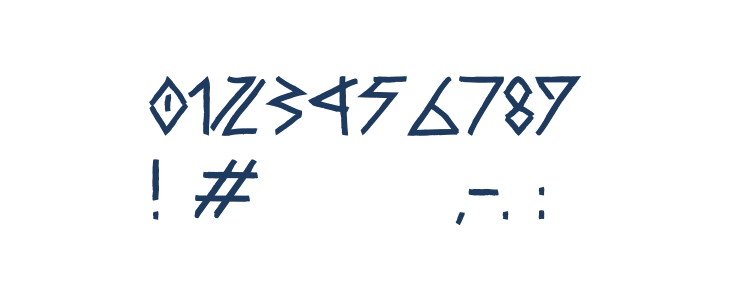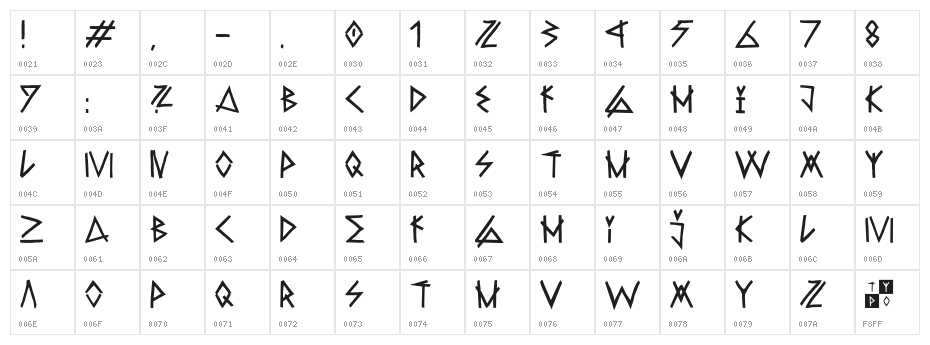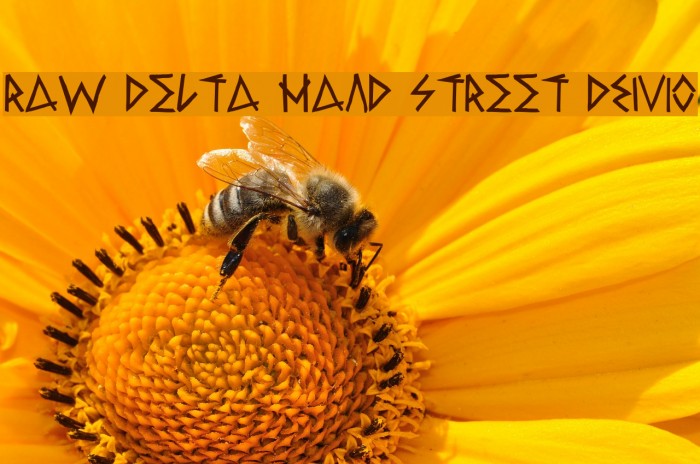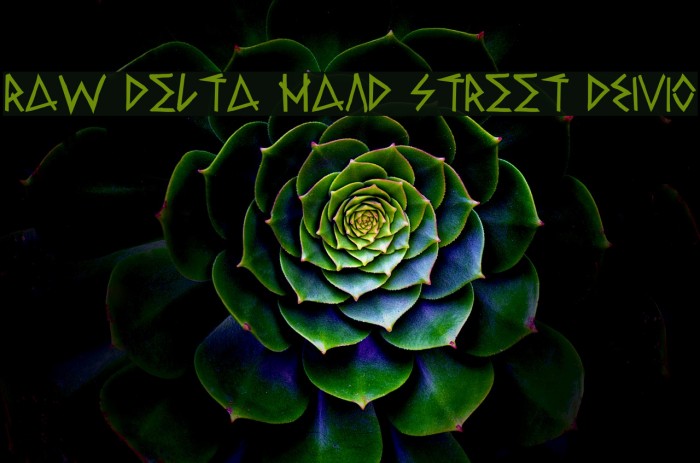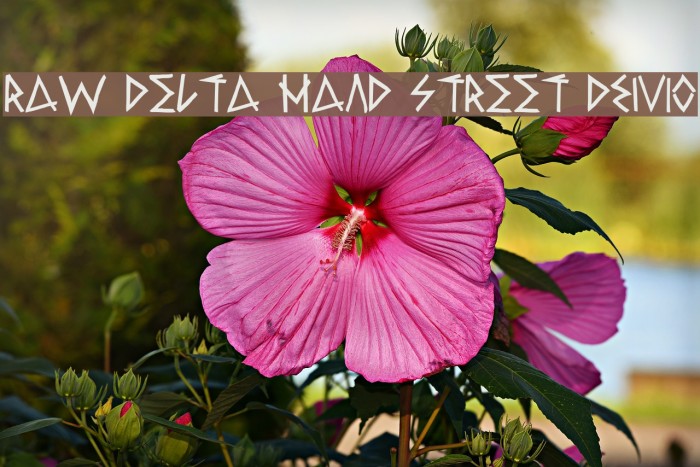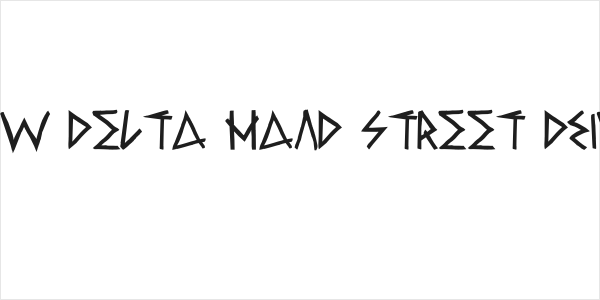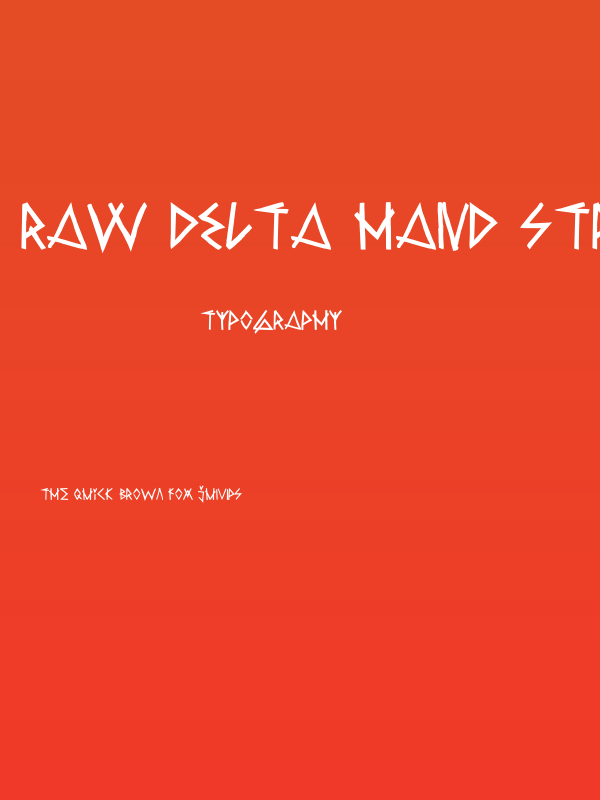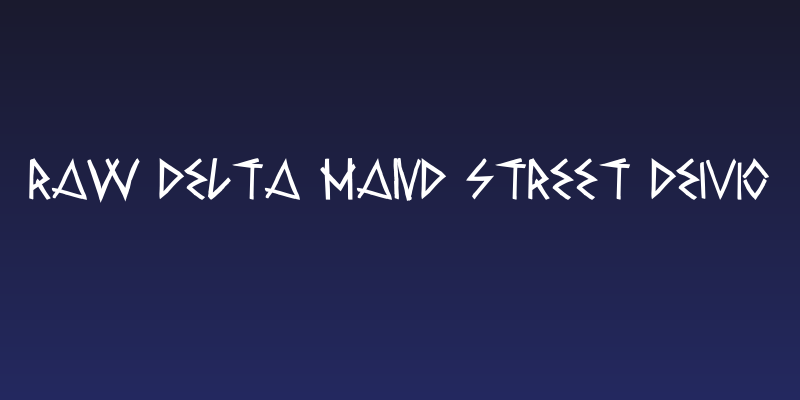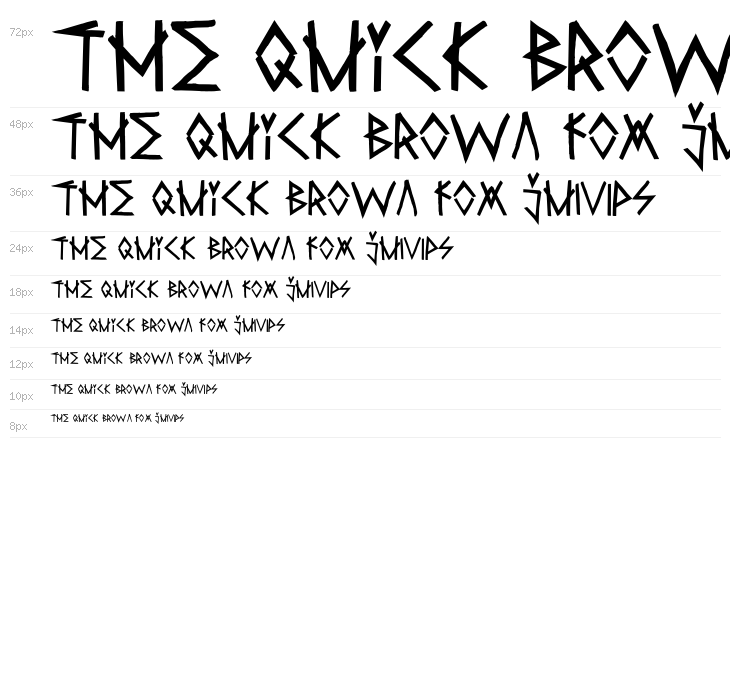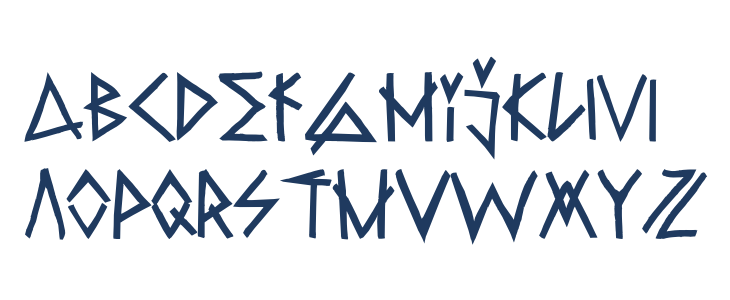
Raw Delta Hand Street DEMO Font
Raw Delta Hand Street DEMO Description
This font features a bold, angular design with a hand-drawn aesthetic, reminiscent of street art or graffiti. The characters are sharp and edgy, with a consistent thickness throughout, giving it a uniform appearance. The uppercase and lowercase letters maintain a similar style, with slight variations in size and shape. Numbers and special characters are integrated seamlessly, maintaining the overall edgy and dynamic feel. The font's unique style makes it stand out, suitable for projects that require a bold and unconventional look.
| Overall Style | Modern, Urban |
| Proposed Projects | Ideal for street art designs, urban-themed posters, album covers, and edgy branding projects. |